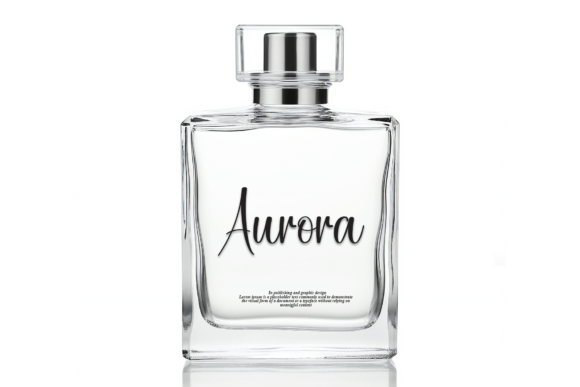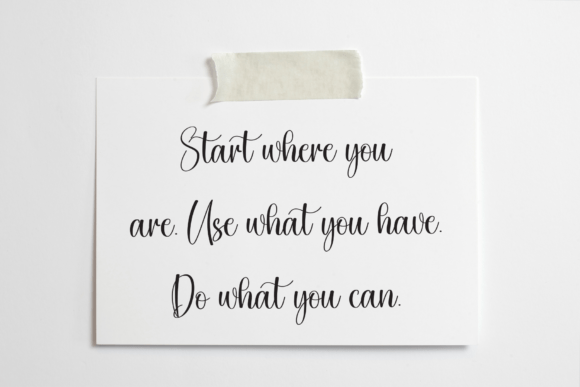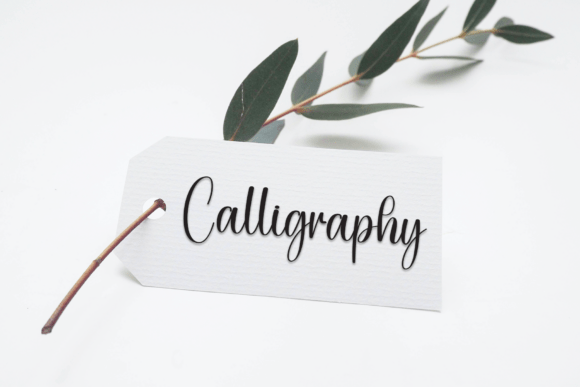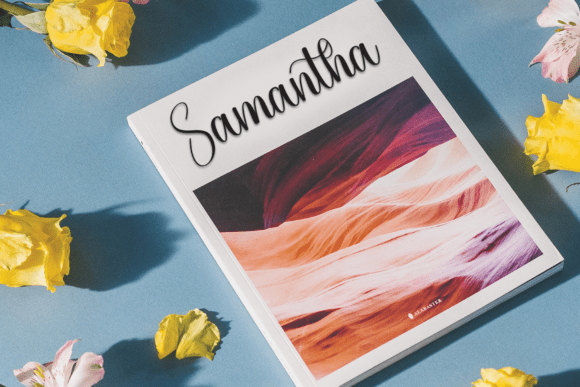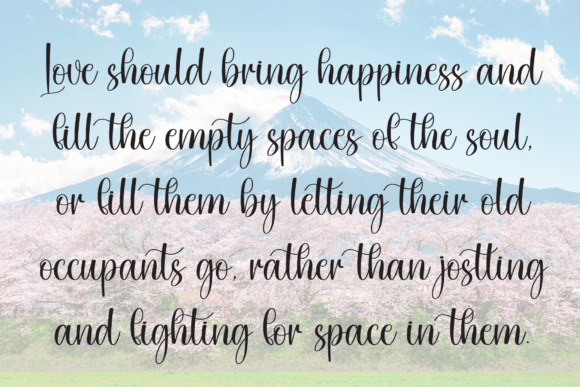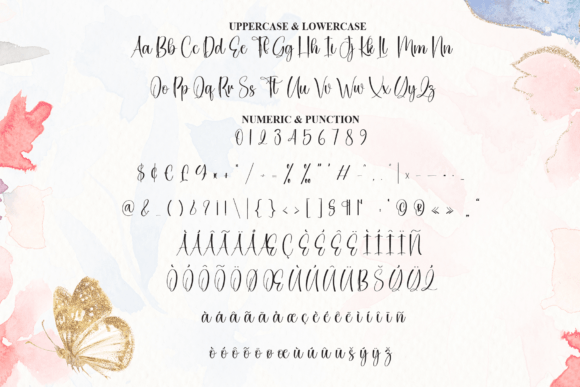
Discover the Elegance of Definition Font: A Stylish Handwritten Script Font
In the world of typography, fonts play a crucial role in conveying the tone and personality of a brand, product, or message. Among the numerous font styles available, handwritten script fonts have gained immense popularity for their unique ability to add a personal touch to various design projects. One such font that has caught the attention of designers and crafters alike is the Definition Font. In this article, we’ll delve into the definition, characteristics, and uses of this beautiful font, exploring how it can elevate your designs and bring a touch of elegance and playfulness to your work.
What is Definition Font?
Definition Font is a stylish handwritten script font that embodies the perfect blend of elegance and playfulness. With its flowing curves and natural rhythm, this font is designed to add a charming and personal touch to various design projects, including invitations, branding, and social media. Its graceful design brings warmth, sophistication, and creativity to any project, making it an excellent choice for designers and crafters looking to create visually appealing and engaging content.
Characteristics of Definition Font
The Definition Font boasts several characteristics that set it apart from other fonts. Some of its notable features include:
- Flowing Curves: The font’s smooth, flowing curves create a natural and effortless look, making it perfect for designs that require a touch of elegance and sophistication.
- Handwritten Style: The font’s handwritten style gives it a personal and charming touch, making it ideal for designs that require a human touch.
- Natural Rhythm: The font’s natural rhythm creates a sense of movement and flow, making it perfect for designs that require a dynamic and engaging look.
Uses of Definition Font
The Definition Font is a versatile font that can be used in various design projects, including:
- Invitations: The font’s elegant and playful design makes it perfect for invitations, such as wedding invitations, birthday invitations, and other special occasion invitations.
- Branding: The font’s unique and charming design makes it an excellent choice for branding projects, such as logos, business cards, and letterheads.
- Social Media: The font’s playful and engaging design makes it perfect for social media graphics, such as Facebook posts, Instagram stories, and Twitter headers.
Benefits of Using Definition Font
Using the Definition Font in your design projects offers several benefits, including:
- Unique and Eye-catching Design: The font’s unique and eye-catching design helps your designs stand out from the crowd and grab the attention of your audience.
- Emotional Connection: The font’s handwritten style and natural rhythm create an emotional connection with your audience, making your designs more relatable and engaging.
- Versatility: The font’s versatility makes it suitable for various design projects, from invitations to branding and social media.
Tips for Using Definition Font
To get the most out of the Definition Font, here are some tips to keep in mind:
- Use it Sparingly: Use the font sparingly to avoid overwhelming your design. Use it for headings, titles, or quotes to add emphasis and create visual interest.
- Pair it with Other Fonts: Pair the Definition Font with other fonts to create a unique and visually appealing design. Use a sans-serif font for body text and the Definition Font for headings or titles.
- Experiment with Colors: Experiment with different colors to find the perfect combination that complements your design. Use a color that matches your brand’s color scheme or contrast it with a bold color to create visual interest.
In conclusion, the Definition Font is a stylish handwritten script font that offers a unique blend of elegance and playfulness. Its flowing curves, natural rhythm, and charming design make it perfect for various design projects, from invitations to branding and social media. With its versatility, emotional connection, and eye-catching design, the Definition Font is an excellent choice for designers and crafters looking to create visually appealing and engaging content.